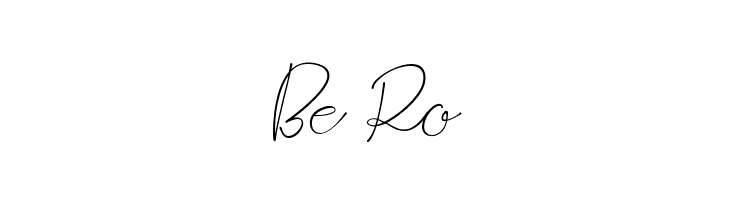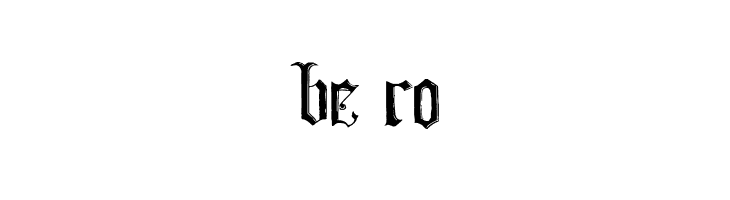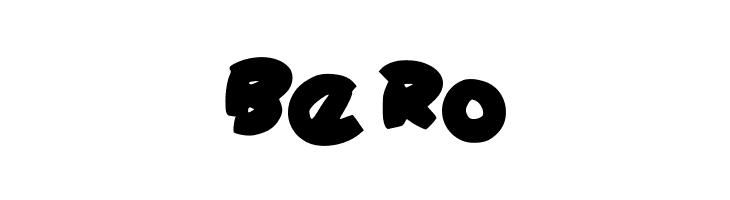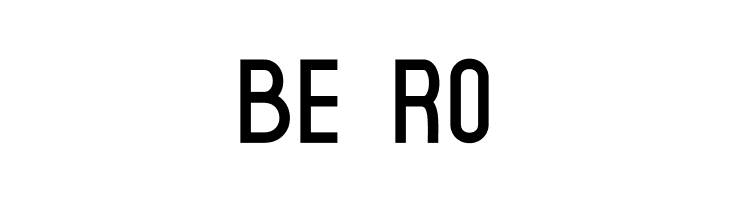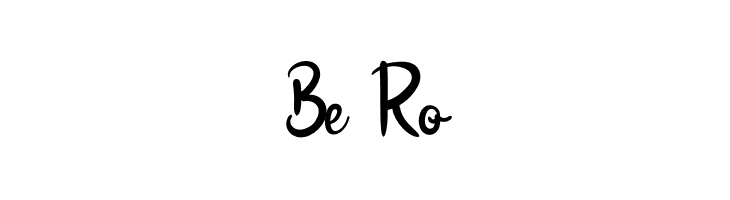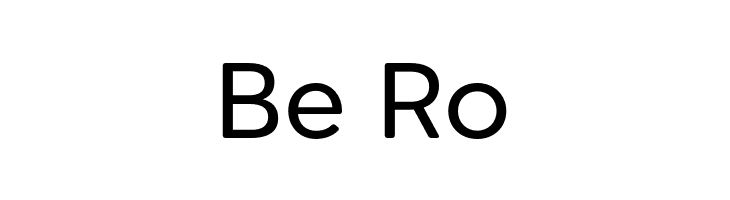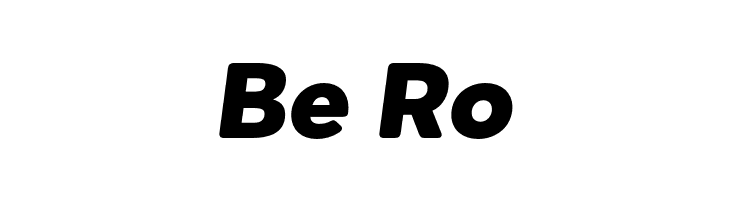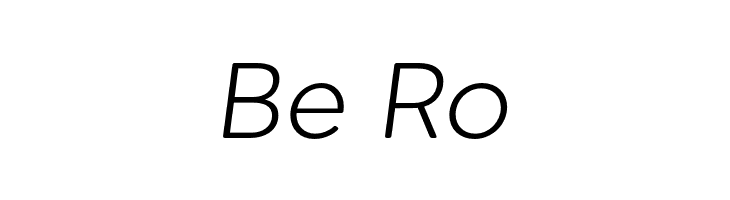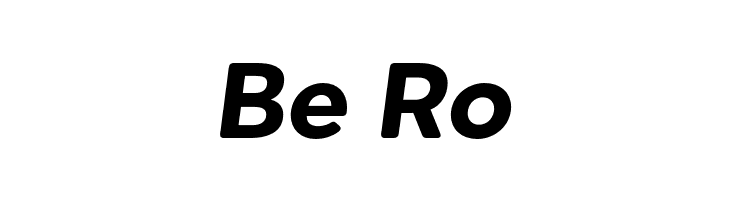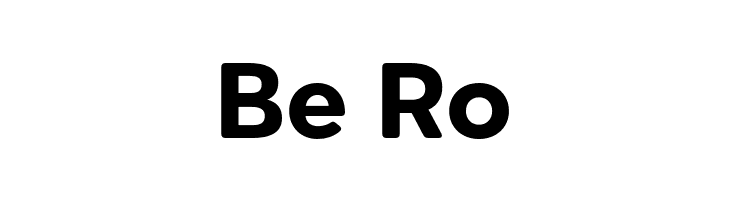
• centuries
A modern, geometric sans-serif font with a sleek and condensed style.
• Centuriqua-Ultra
A bold, impactful font with strong, consistent characters.
• Century Down
• Century Glamour
A modern and elegant sans-serif font with clean lines and balanced characters.
• Century Manero
A bold blackletter font with intricate, angular letterforms and a medieval aesthetic.
• Century modern shadow
• Century modern TT Italic
• Century modern TT Regular
• Century Wishes
A bold, handwritten font with dynamic and expressive strokes.
• Centurylight
A sleek, modern font with elongated, narrow characters and consistent stroke width.
• Centurysolid
A modern, outlined font with bold outer lines and a playful yet professional style.
• Cepakno Market
A playful, handwritten script font with a modern and dynamic style.
• CephaloniaDEMO-Regular
A dynamic and expressive handwritten font with fluid strokes and natural flow.
• Ceporro
A playful, hand-drawn font with bold, irregular strokes.
• Cepttoni
A fluid, handwritten-style font with elegant, connected letters.
• Cepttoni calligraphy
• Cerah Ceria
A bold, playful font with thick, rounded characters and a hand-drawn aesthetic.
• ceraicacture
• CERAMIC
A mosaic-inspired decorative font with a textured, artistic appearance.
• CERAMIC
A mosaic-like font with characters formed from irregular fragments, offering a textured and artistic look.
• Cerangka
A bold, irregular, hand-drawn font with an artistic and whimsical style.
• Cerayon
A playful, casual handwritten font with rounded, smooth letterforms.
• Cerbature
• Cerbetica
A modern, clean sans-serif font with uniform strokes and a slightly condensed width.